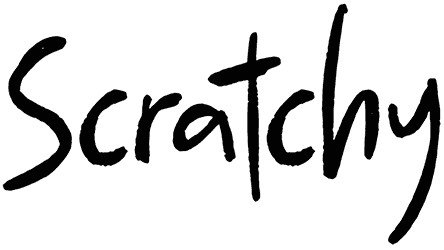
Scratchy Font
All you have to do to convey a friendly and modern vibe to your followers is to use a handwritten font, and this unique item can do it in a cool way. The Scratchy font has an urban and realistic mood, but most punctuation marks of this script font are not available. Try it for your new design of a notebook cover or whatnot, and be impressive.